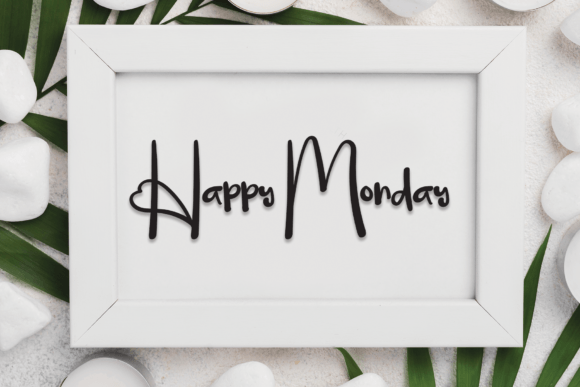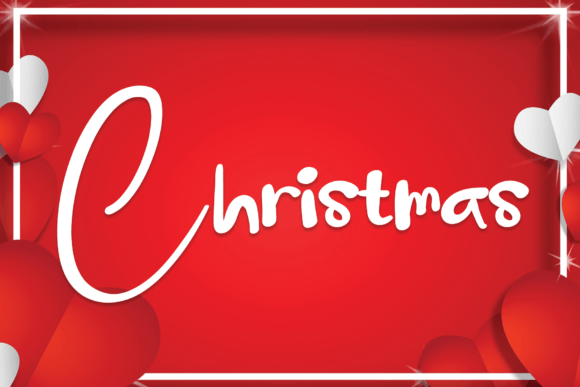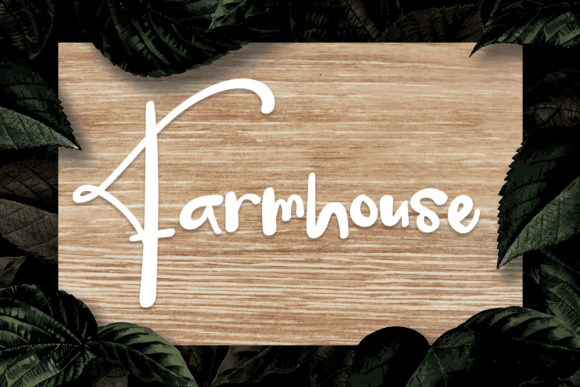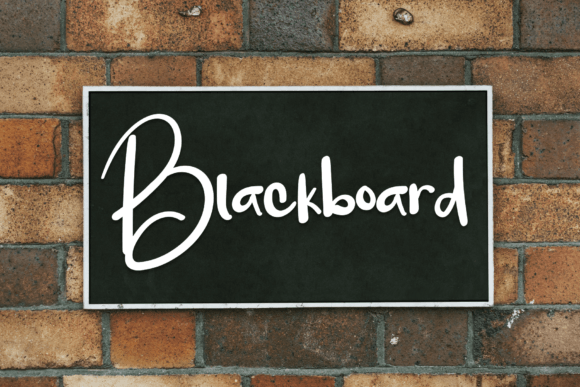
About Handcraft Font
Handcraft is a delightful handwritten font designed with a friendly, approachable personality. With smooth curves and a clean, legible form, it brings a touch of simplicity and charm to any design. Whether you’re working on digital creations or physical print materials, the Handcraft font download is a reliable choice for adding warmth and creativity to your project.
Crafted for flexibility, this font can serve both casual and professional needs while maintaining an inviting and handcrafted appearance.
Ideal Uses for Handcraft Font
The Handcraft font download is perfect for a wide range of creative projects. Some of its most popular use cases include:
Greeting Cards & Invitations – Bring a personal touch to birthday, wedding, or thank-you cards
Craft Projects – Ideal for Cricut, Silhouette, and printable art designs
Social Media Graphics – Eye-catching for quotes, promos, and story highlights
Presentation Slides – Adds a human feel to otherwise corporate visuals
Planners & Journals – Works beautifully in digital notebooks and educational templates
Logos & Branding – Great for small businesses aiming for a handmade or approachable brand
Wherever you use it, the Handcraft font download helps your words come across with sincerity and style.
Style: Handwritten script with a clean, friendly tone
Why Download Handcraft Font?
The Handcraft font stands out by blending simplicity with personality. It’s clear enough for body text and charming enough for decorative titles. Whether you’re designing for school, a handmade shop, or a social media campaign, Handcraft font download is a valuable asset in your design toolkit.